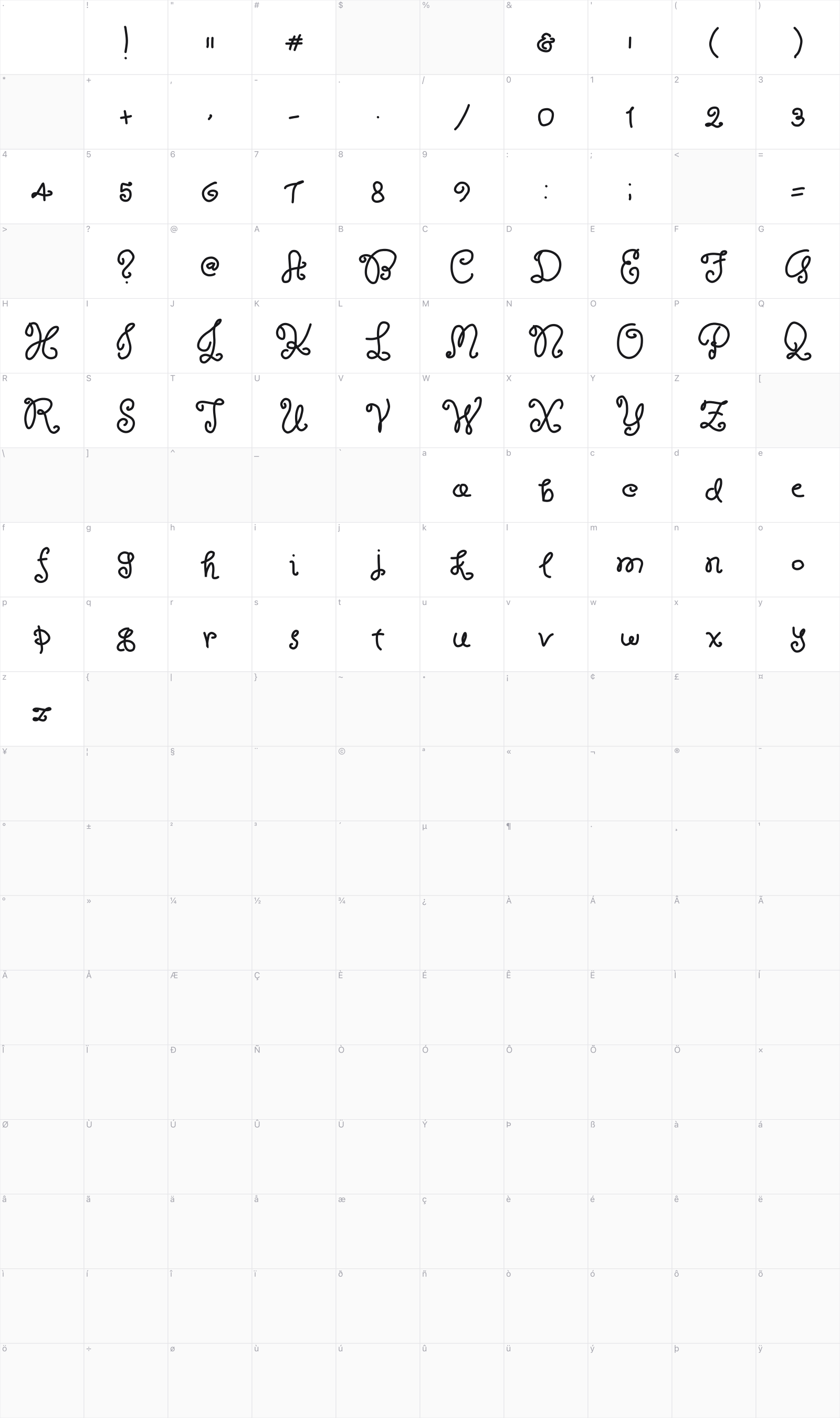
Royalty Waffles
by Geronimo Font Studios
Royalty Waffles is a thin, curly handwritten face from Geronimo Font Studios with looping letterforms that bounce between whimsical and slightly eccentric. The strokes stay light and decorative, with enough quirky flourish to give each word real personality without becoming unreadable. It fits naturally into invitations, greeting cards, packaging, and casual branding where a playful, hand-done feel matters more than straight-laced legibility.